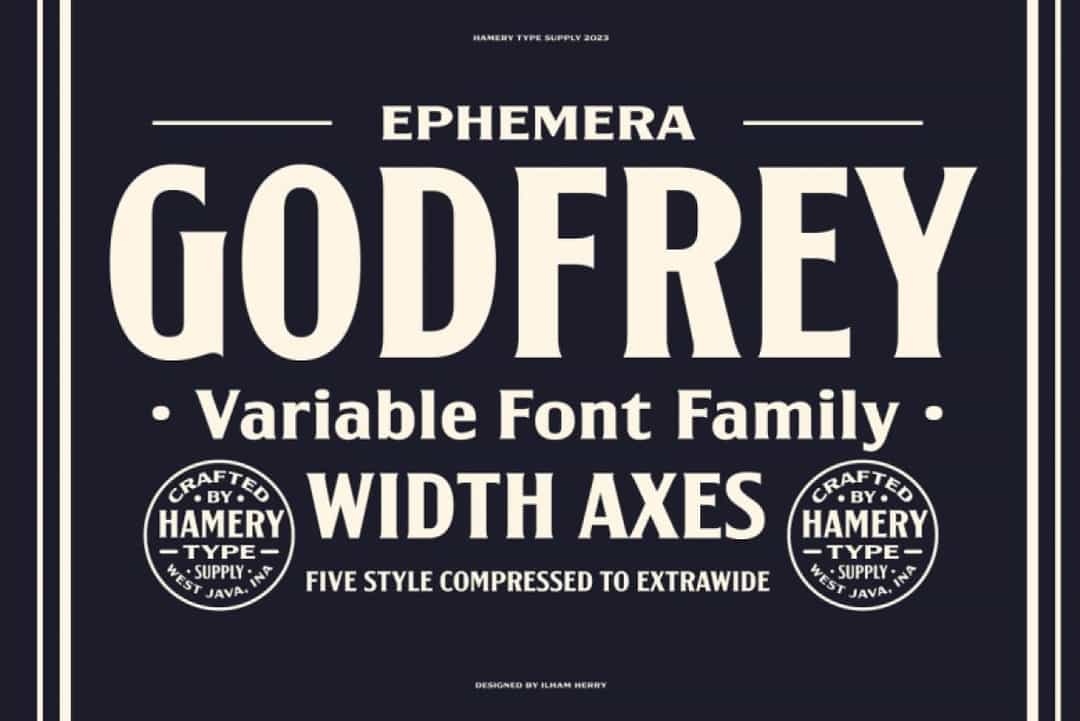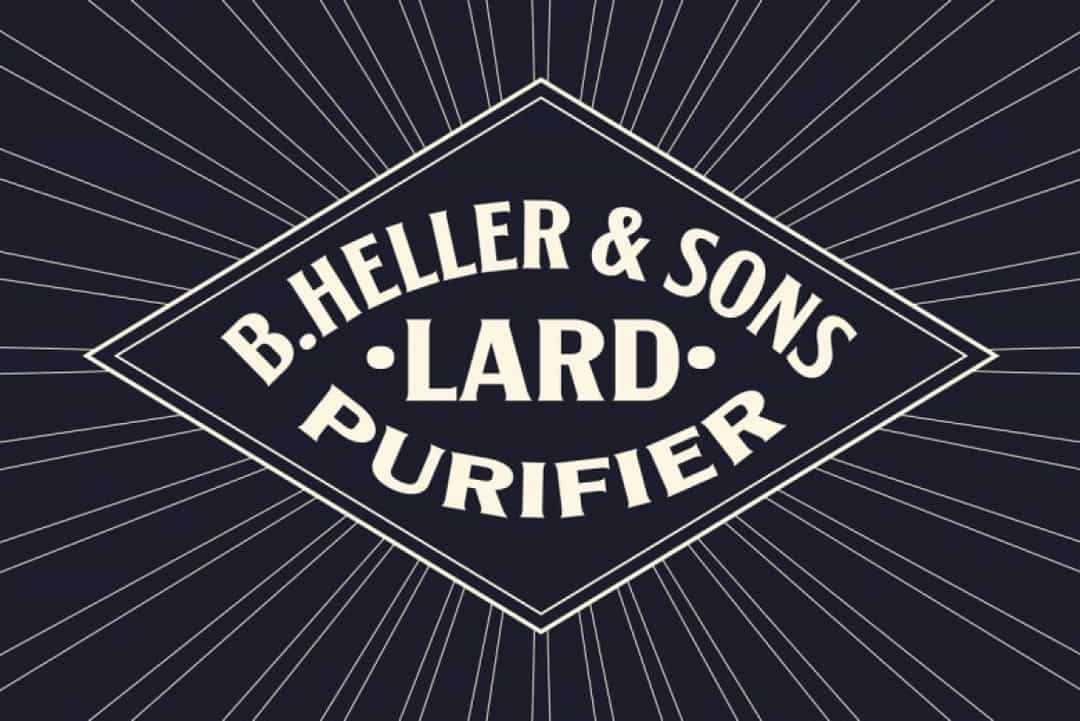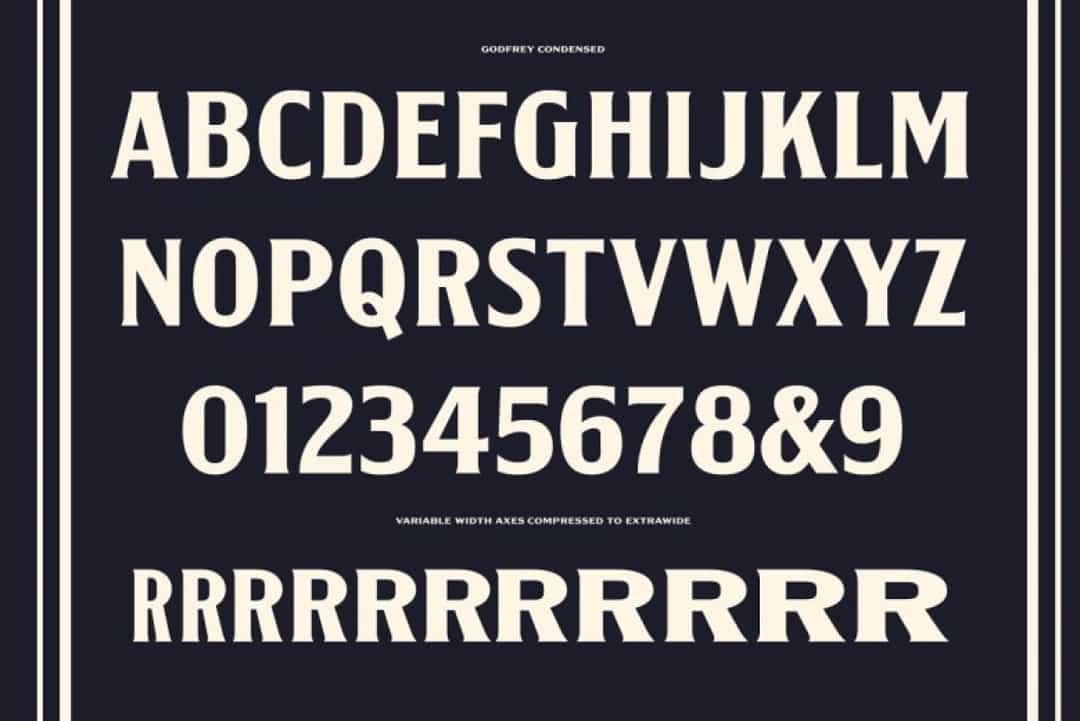
Godfrey was inspired by vintage labels that featured multiple font styles, making it easier to pair font styles together for creating. Opentype features include stylistic alternate, tabular line and ligature CO as well as LTD for ease of use when pairing styles in creating. Godfrey was designed specifically to meet display requirements: headlines, posters T-shirts signage panels logos branding and more can benefit from Godfrey.